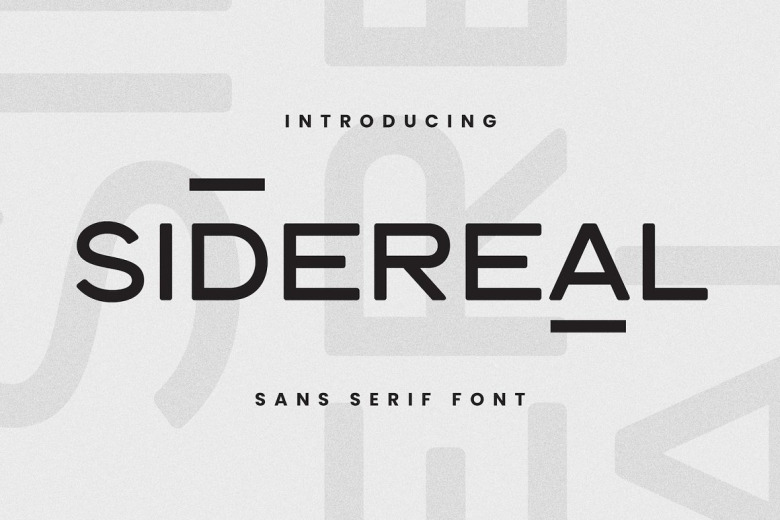
Sidereal Font
Sidereal is a sans serif font consists of visual elegance, smooth curves, and beautiful ligatures manifestly, over and above the rest deserves special attention, making your work look real and attractive. It is a very versatile font that works in both large and small sizes.
Sidereal Sans Serif Font